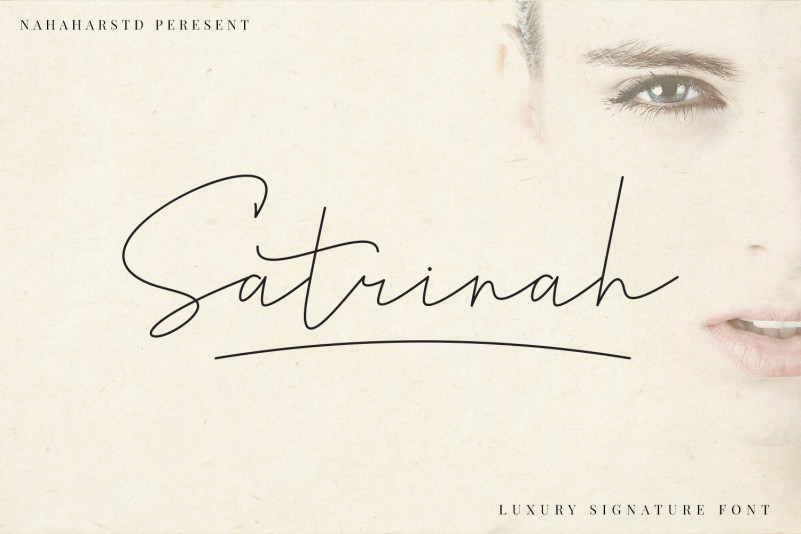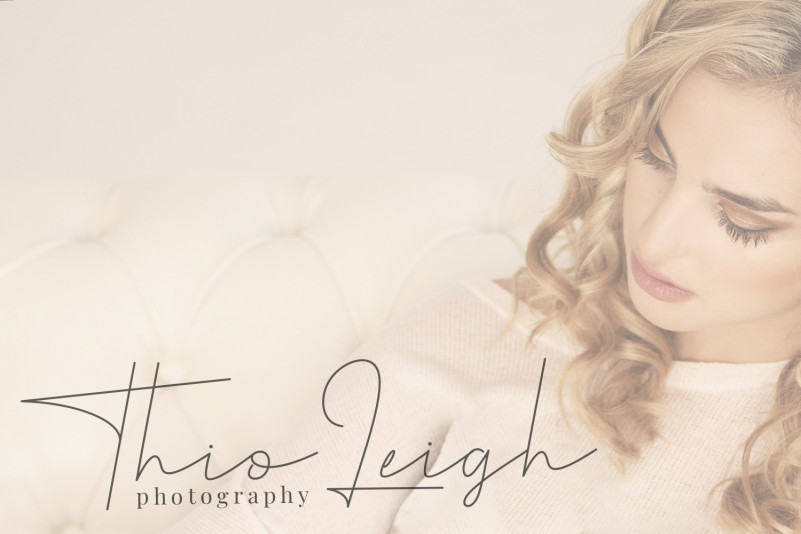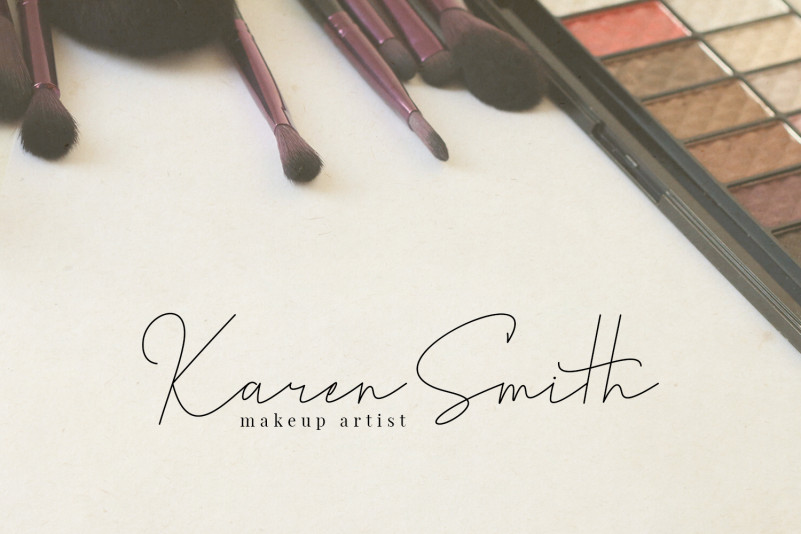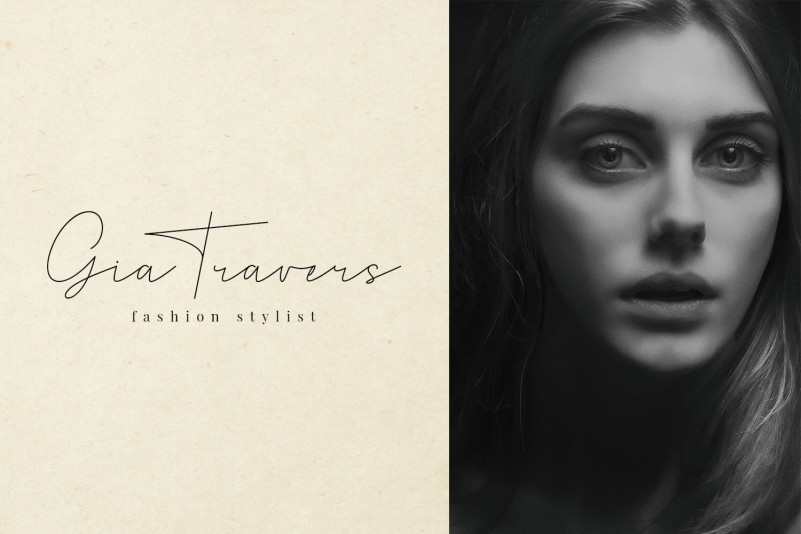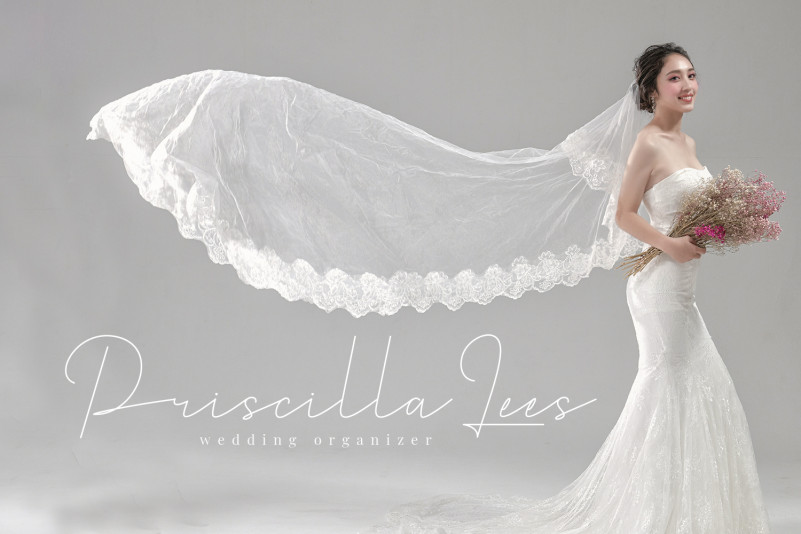
Satrinah – Signature Font
Satrinah Signature Font is a luxury signature font, will be suitable for any projects such as logo’s, branding projects, homeware designs, product packaging, mugs, quotes, posters, shopping bags, t-shirts, book covers, name card, invitation cards, greeting cards, label, photography, watermark, special events, and all your other lovely projects that need beautiful handwriting taste.